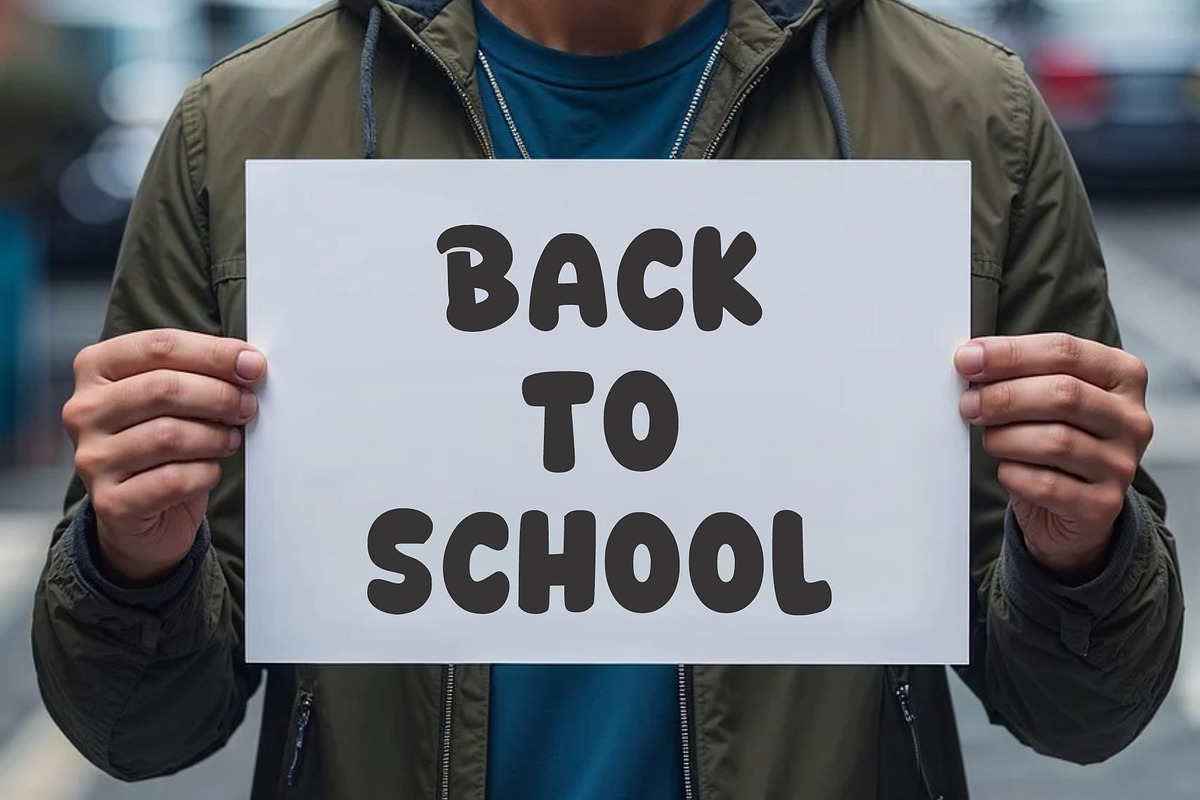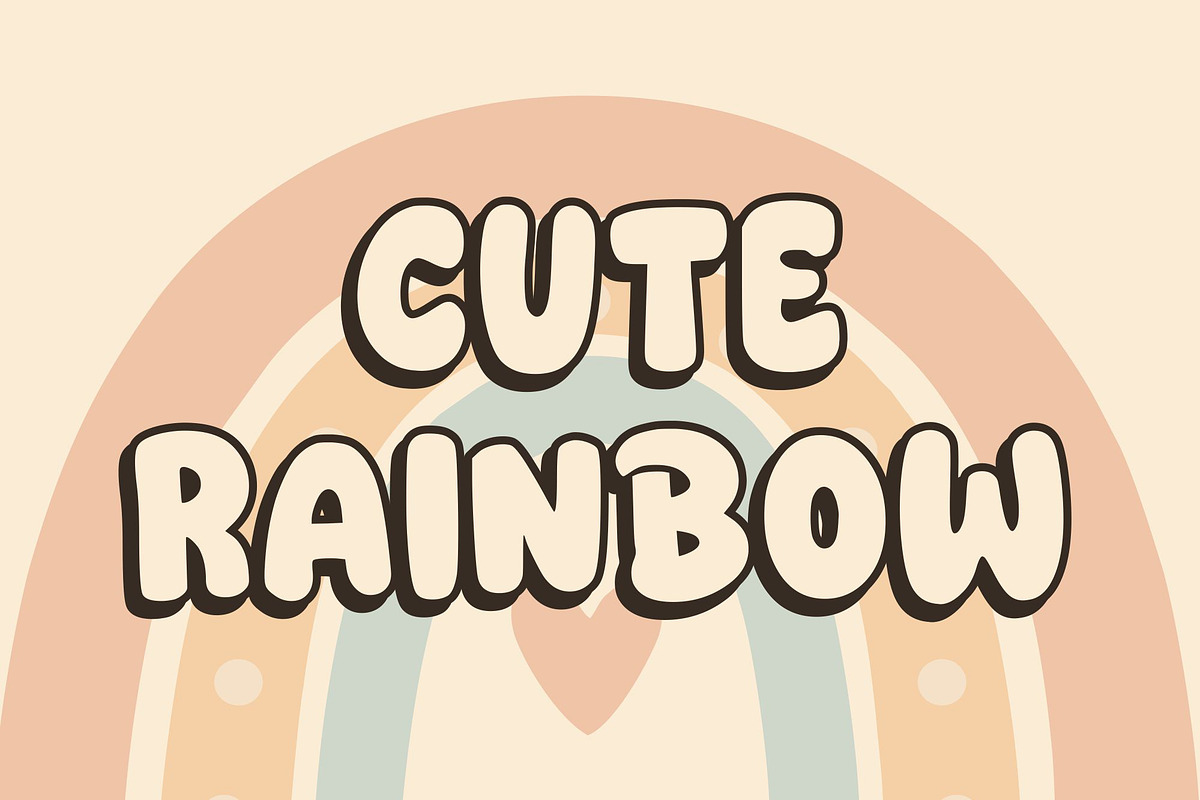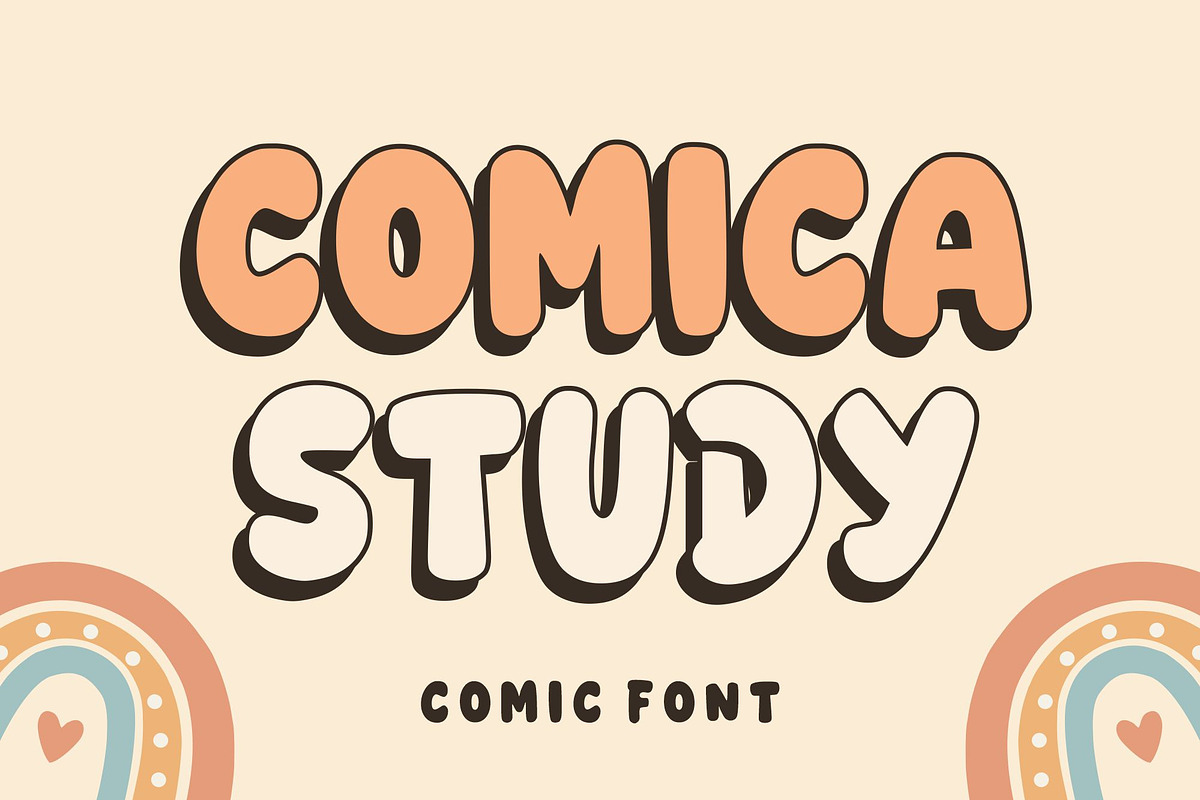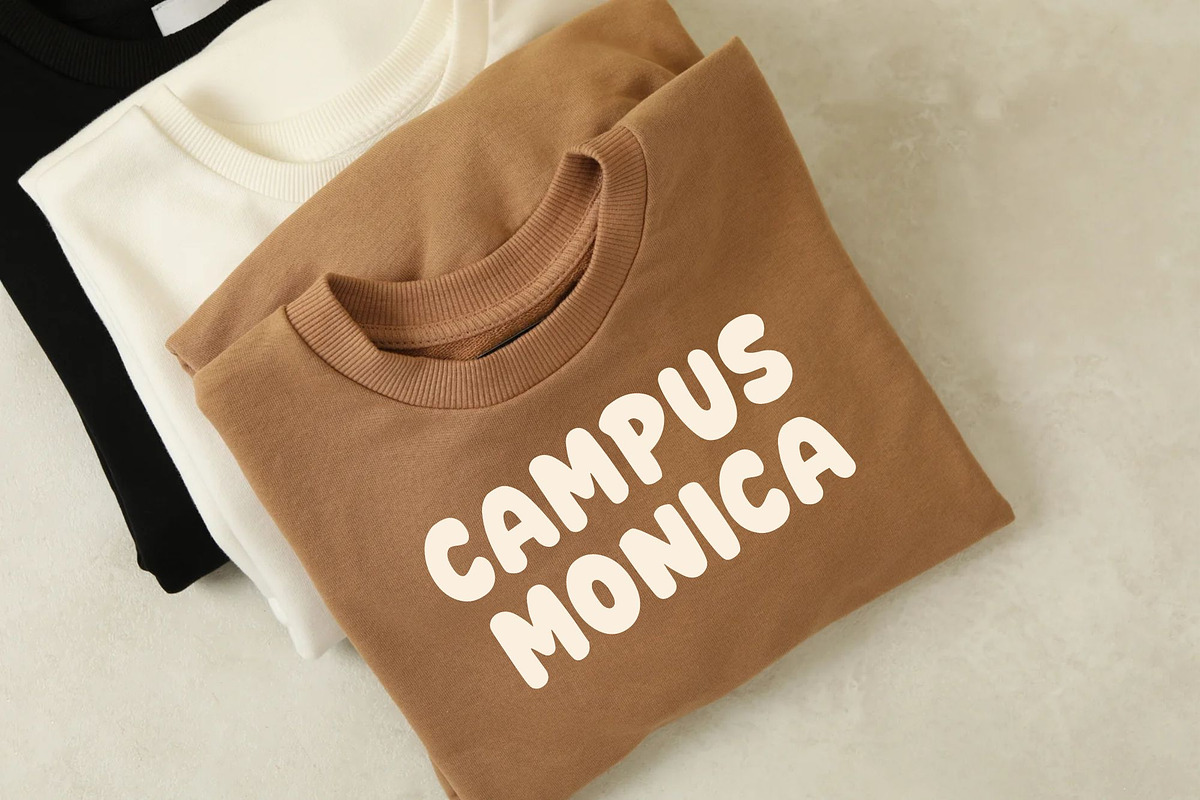
Comica Study
Comica Study a charming and cute bubble font that exudes playfulness! Its soft curves and bold appearance are perfect for creating eye-catching headlines, posters, social media graphics, and branding. Add a dreamy touch to your designs with this delightful font that’s both fun and versatile.